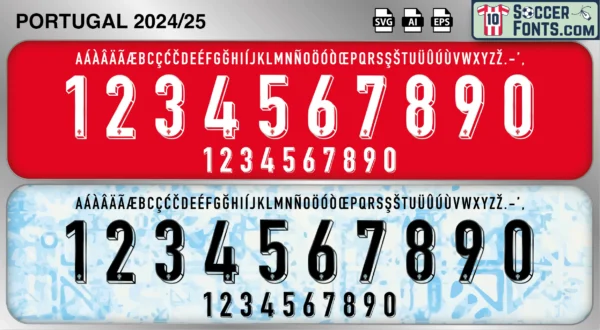
Portugal 2024-25 Font
The Portugal 2024-25 font is an editable soccer jersey lettering design in vector format inspired by the Portugal kit style used during the 2024-25 football seasons. This football font artwork is prepared for football shirt recreations, custom jersey projects, football kit mockups and sports graphic design workflows.